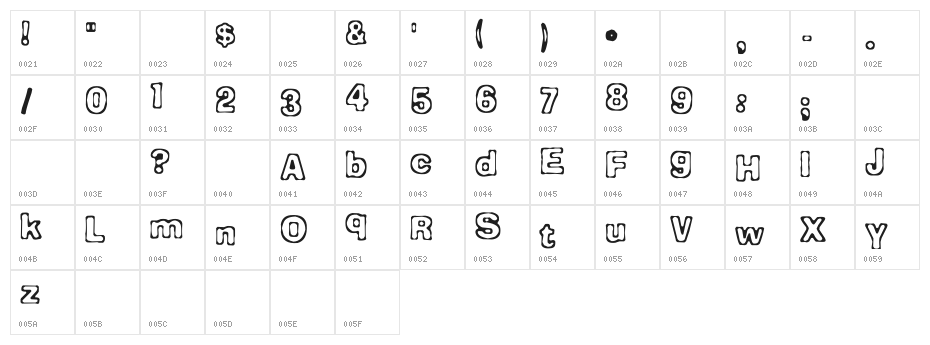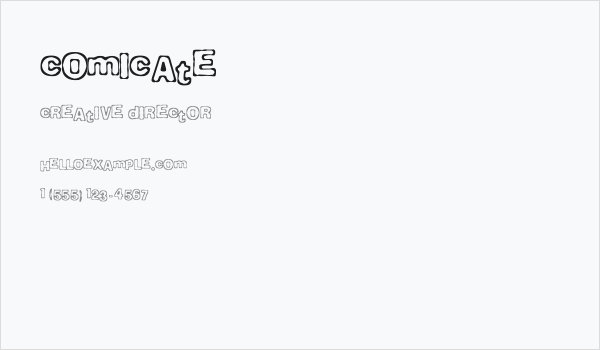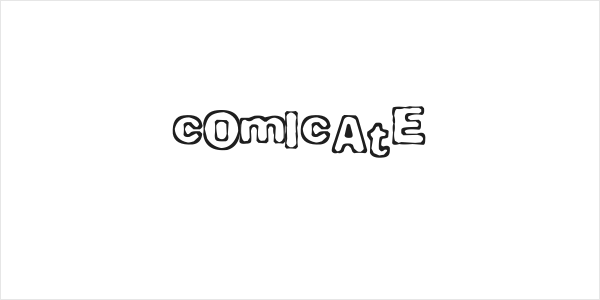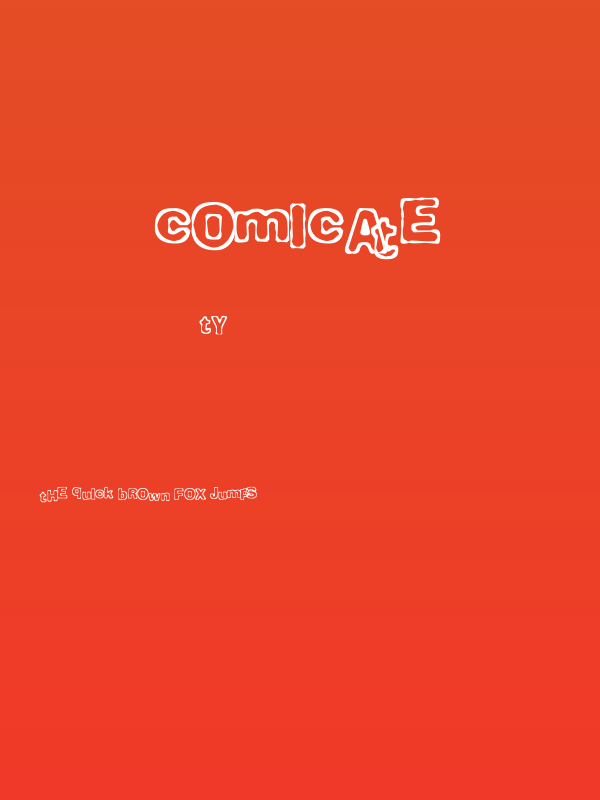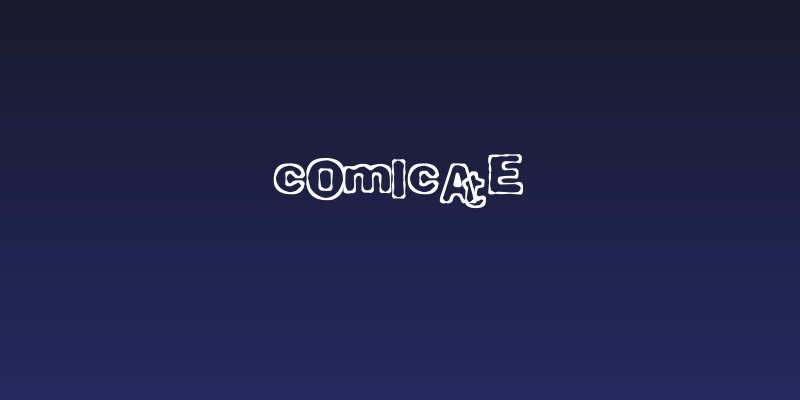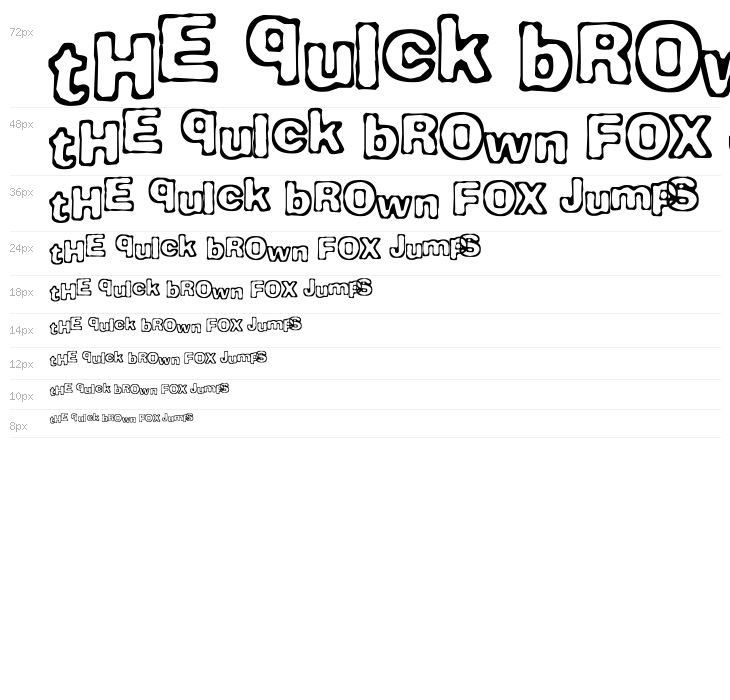
Comicate Font
This playful and bold typeface features thick, irregular outlines that give it a hand-drawn, comic-like appearance. The characters are slightly rounded with a whimsical touch, making them stand out with a friendly and approachable vibe. The uppercase and lowercase letters maintain a consistent style, while the numerals and special characters complement the overall design. Its unique, cartoonish style is perfect for projects that require a fun and informal look. The font's boldness ensures readability, while its distinctive outlines add a layer of creativity and charm.
| Proposed Projects | Ideal for children's books, comic strips, playful branding, posters, and greeting cards. |